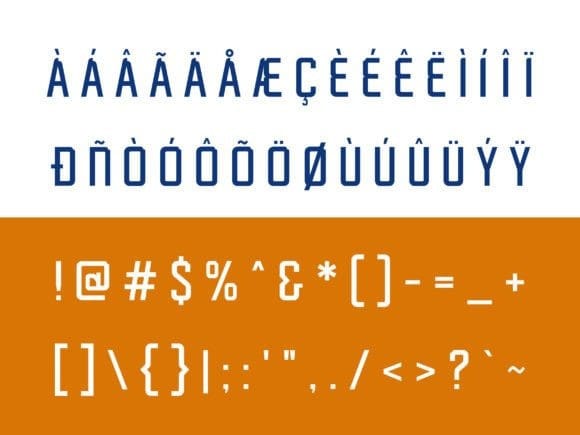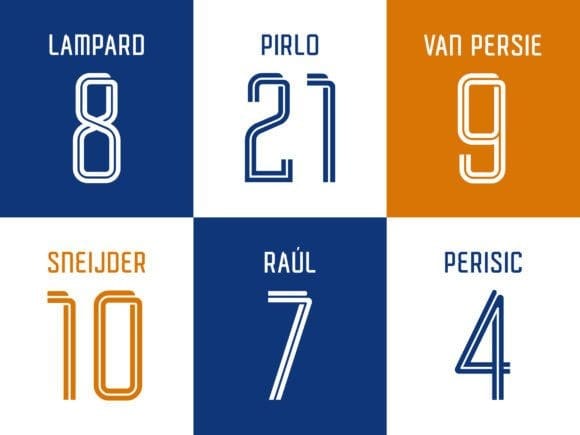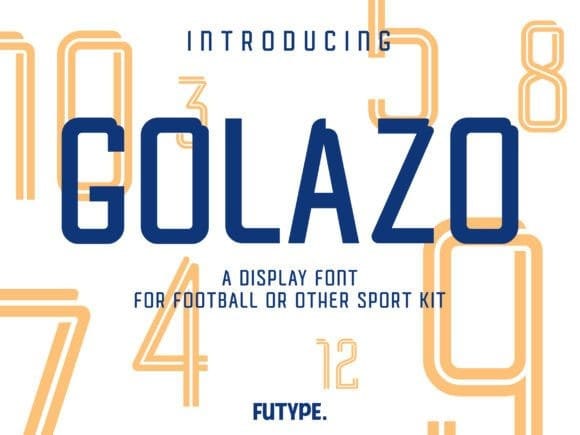
Golazo Font
Golazo Font is a display font that is made for football or other sports kit numbers. Even though it is made for sports, Golazo is also great for other display purpose.
With its unique shape number and letter, it will make your team jersey look different and boost your confidence.